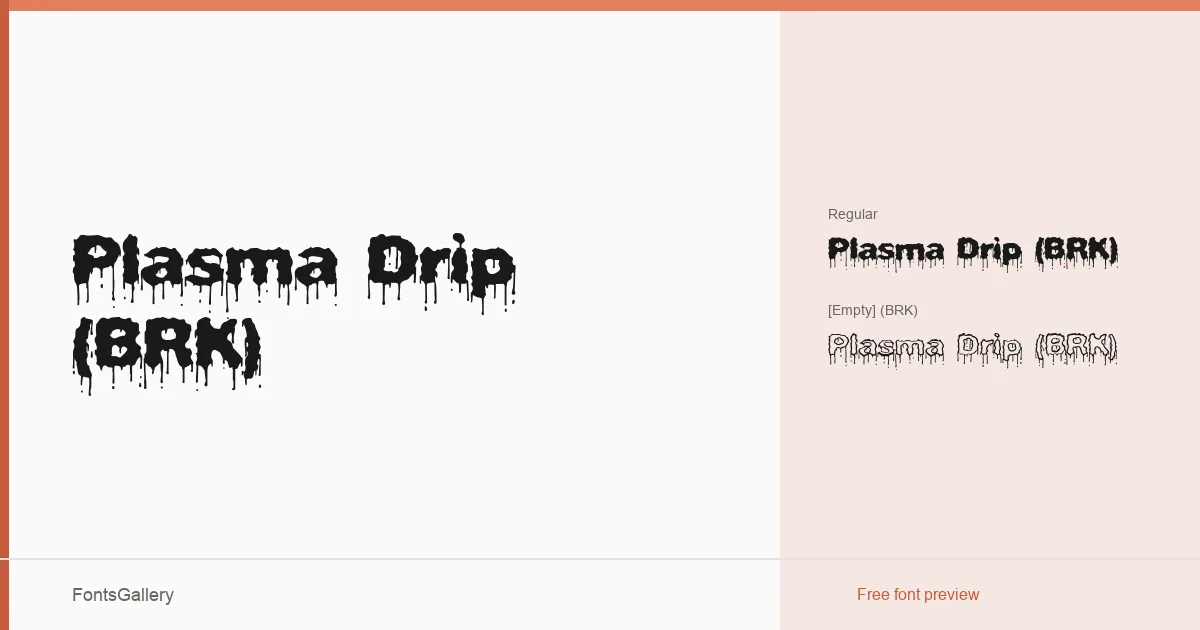
About Plasma Drip (BRK) Font
Plasma Drip (BRK) is a bold display typeface released by Ænigma Fonts, crafted to make a striking visual impact across a wide range of creative projects. Its raw, expressive character places it firmly in the grunge and vintage design tradition, making it a go-to choice for designers seeking something with genuine attitude. The font's distinctive personality ensures it stands out wherever high visual drama is required.
As a display-category typeface, Plasma Drip (BRK) features bold, heavily stylized letterforms that evoke a gritty, vintage grunge aesthetic. The characters carry a distressed, dripping quality that adds energy and edge to every composition. This combination of boldness and textural detail gives the font a tactile, hand-crafted feel that commands attention.
Plasma Drip (BRK) thrives in high-impact applications such as logos, posters, headlines, social media graphics, and t-shirt designs where a bold, grunge-influenced look is desired. Its expressive style works especially well when contrast is needed against cleaner, more neutral typefaces. For a well-balanced typographic pairing, consider combining it with Helvetica for a modern counterpoint or Aresink for a complementary edgy aesthetic.